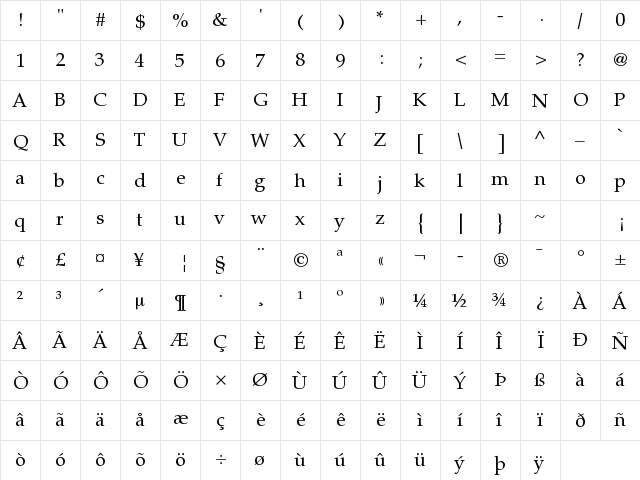
Bahij Uthman Taha Regular
| Foundry | Tiro Typeworks for Adobe Systems Incorporated. |
| Designer | Tim Holloway (Arabic) and Robert Slimbach (Latin) |
Design Context for Bahij Uthman Taha Typeface
Bahij Uthman Taha is a composed and adaptable typeface that performs quietly and consistently across a wide range of design contexts.